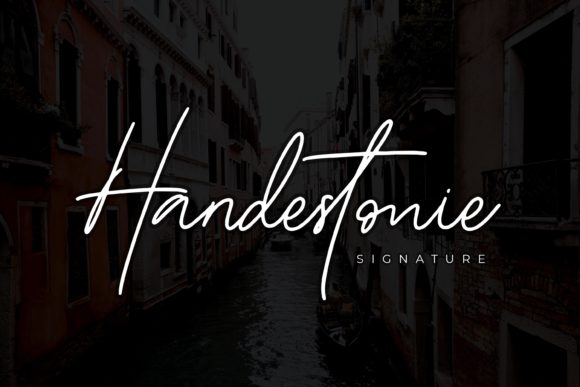
Step into a world of culinary delight, where Handestonie Font becomes the secret ingredient, adding a dash of charm and a sprinkle of elegance to your food packaging designs. This enchanting script font, meticulously crafted by almarkhatype, captures the essence of handwritten notes, inviting your customers to savor every morsel.
Indulge in the casual charm of Handestonie, a font that exudes warmth and approachability. Its down-to-earth nature makes it the perfect choice for creating packaging designs that resonate with your customers on a personal level. Whether you're designing labels for artisanal jams, hand-crafted chocolates, or gourmet coffee blends, Handestonie will add a touch of authenticity and sincerity to your creations.
Prepare to be captivated by Handestonie's remarkable versatility. Its ability to effortlessly adapt to various backgrounds and design elements makes it a true all-rounder. Whether you're adorning busy packaging with intricate patterns or creating striking standalone headlines, Handestonie will rise to the occasion, ensuring your food products stand out on crowded shelves.
Unleash the storytelling power of Handestonie and engage your customers with a tale of taste and tradition. Its timeless elegance evokes a sense of nostalgia, transporting consumers to a simpler time when food was prepared with love and care. Handestonie's graceful curves and delicate strokes create a visual symphony that speaks to the heart, leaving a lasting impression that will keep your customers coming back for more.